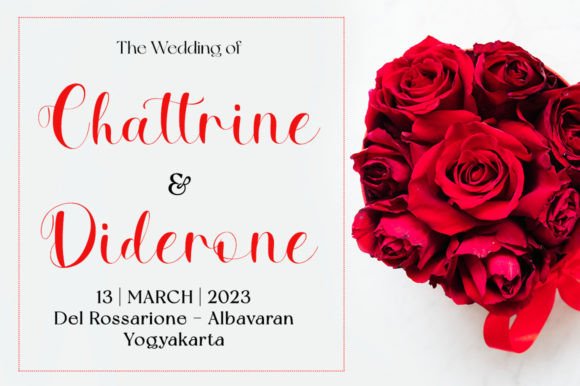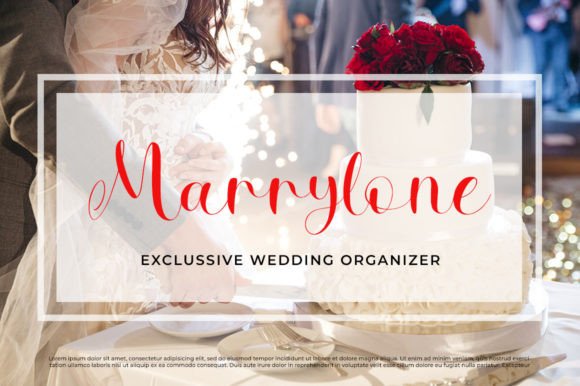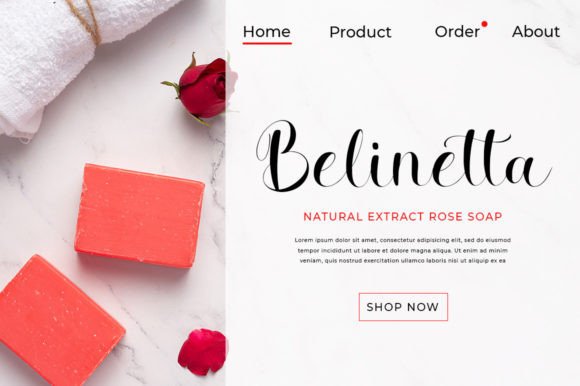
Introduction to Reylineta Font
As you sit at your desk, surrounded by blank sheets of paper and a sea of creative possibilities, you know that the right font can make all the difference. It’s that moment when the perfect script font comes to mind, and you can envision the elegance and sophistication it will bring to your latest art project. That’s where the Reylineta Font steps in, offering a high-quality design resource that will elevate your creative project to new heights.
With its transparent background and modern look, the Reylineta Font is perfect for designers looking to add a personal touch to their work. Whether you’re creating logos and branding, invitations, or social media posts, this font is sure to make a statement. And the best part? It’s available for free download, making it an accessible design resource for creatives of all levels.
So why is the Reylineta Font so valuable for designers? It’s simple: it offers a level of elegance and sophistication that’s hard to find in other fonts. With its perfect blend of style and functionality, this font is sure to become a go-to resource for any creative project.
Key Features of Reylineta Font
- High-quality design resource for creative projects, ideal for digital artists and designers.
- Features a unique and stylish design, perfect for adding a touch of elegance to any creative project.
Honest Review: Reylineta Font
I recently stumbled upon the Reylineta Font and I must say, it’s a gem for any creative project. As a designer, I appreciate high-quality fonts that can elevate a design and make it stand out. The Reylineta Font is no exception.
What works well is the font’s versatility. It comes in a range of styles, from bold to light, making it perfect for various design projects. The font also features a transparent background, which is ideal for creating visually appealing designs without any distractions.
- ✨ Transparent background for a clean and minimalist look
However, there are some limitations to consider. The font may not be suitable for projects that require a lot of bold text, as the lightest style can sometimes get lost in the design. Additionally, the font’s italic style may not be as polished as the other styles.
Overall, I’m impressed with the Reylineta Font. It’s a valuable addition to any design resource library, and its free download makes it an excellent option for designers on a budget.
Tips for Getting the Most Out of Reylineta Font
For optimal results, use the Reylineta Font in combination with other high-quality design resources. Experiment with different font sizes and styles to create visual interest. The Reylineta Font is a free download, making it an affordable addition to your design toolkit.
The Reylineta Font is suitable for a wide range of creative projects, including business cards, brochures, and presentations. Its elegant design and transparent background make it perfect for designers looking to add a touch of sophistication to their work.